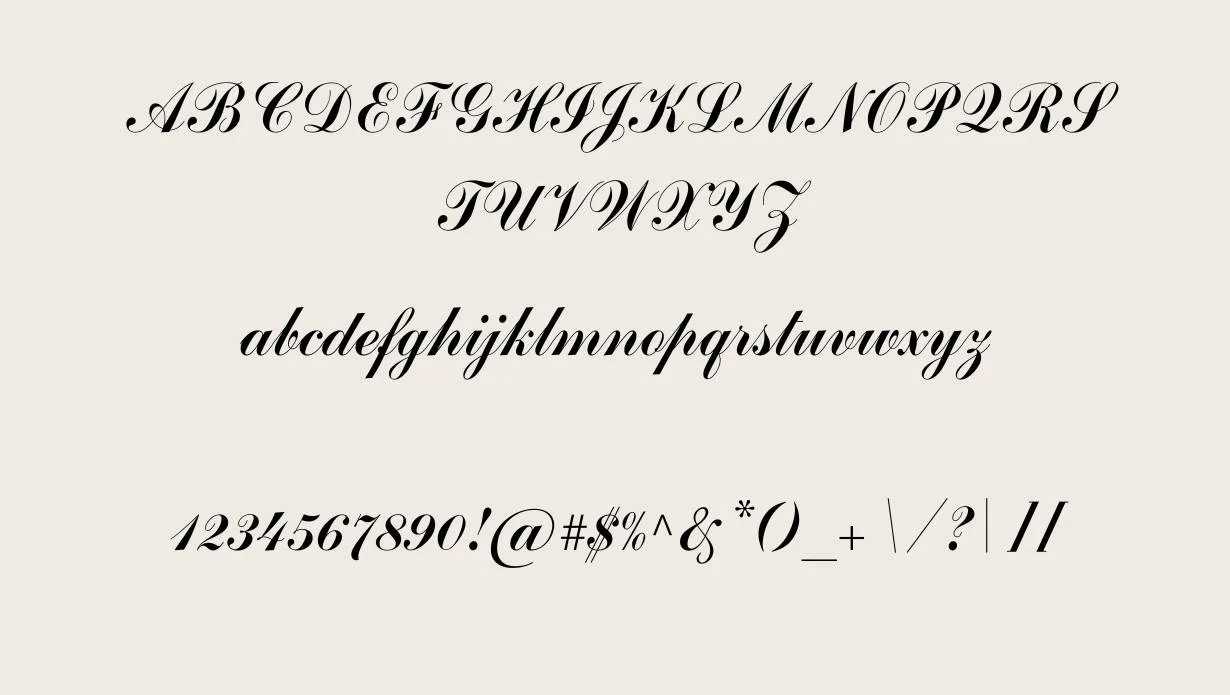
The Commercial Script Font is an elegant and stylish choice, like a signature on a classy document. Its flowing characters add a touch of sophistication to graphics in Adobe Photoshop, bring an elegant flair to web design with CSS, or enhance the professionalism of documents in MS Word.
This font effortlessly elevates the look of various design applications with a touch of timeless elegance.
| Name | Commercial Script Font |
| Designer | Morris Fuller Benton |